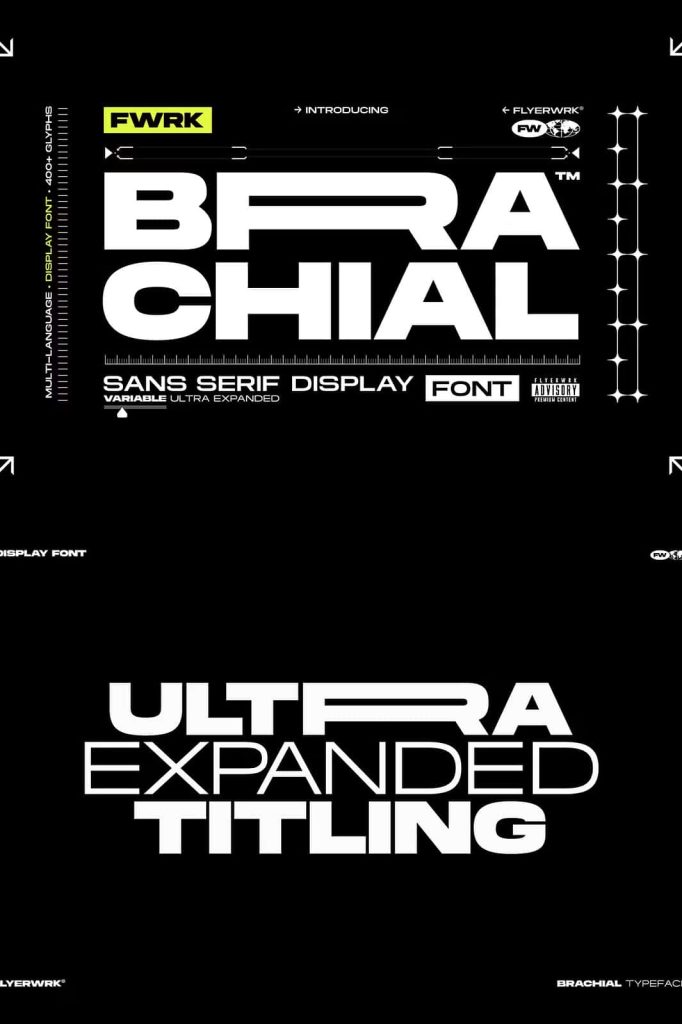
Brachial Typeface: A Bold Ultra-Wide Geometric Font That Breaks Boundaries
The Brachial typeface emerges as a groundbreaking ultra-wide geometric sans-serif font crafted for designers who refuse to settle for ordinary. Built with strong visual impact and forward-thinking aesthetics, Brachial invites creators to embrace bold expression and explore typography in a more powerful and unconventional way. This typeface becomes the ideal weapon for artists, content creators, and branding professionals aiming to deliver extraordinary visuals that command attention.
A Typeface Engineered to Defy Creative Limits
Brachial stands out through its daring design structure. Its ultra-wide proportions create a dynamic presence that instantly reshapes how text interacts with space. Every letterform is carefully constructed to reflect geometric precision while still offering an expressive voice. This unique combination allows designers to produce striking compositions with confidence, making Brachial the go-to choice for projects that demand a strong visual statement.
Ultra-Wide Geometry for Maximum Impact
The core strength of Brachial lies in its bold geometric shaping. The wide characters expand across the canvas, bringing undeniable authority and clarity to headlines, posters, packaging, and branding materials. The deliberate spacing and stretched forms empower you to take full control over layout dynamics. With Brachial, text becomes more than words—it transforms into a visual experience that defines the tone of your entire design.
Unleash Your Inner Design Maverick
This is not a typeface for subtlety. Brachial encourages creators to embrace bravery, experiment with scale, and push design boundaries further than ever before. It challenges traditional typography rules and opens doors to inventive arrangements and expressive visual storytelling. Whether you work on futuristic concepts, energetic advertising, or experimental art pieces, Brachial equips you with the freedom to shape bold and unforgettable designs.
Ideal for Branding, Posters, Digital Art, and More
The versatility of Brachial makes it a powerful asset across numerous creative fields. Its modern and commanding appearance is perfect for branding projects that need strong identity and instant recognition. Posters and promotional materials become more compelling with Brachial’s bold lines and wide stance. In digital art and editorial layouts, the typeface introduces a sense of motion and innovation that elevates the entire visual narrative. Whatever the medium, Brachial consistently delivers impactful results.
A Typeface Built for Artists Seeking the Extraordinary
In a world filled with generic fonts, Brachial stands out as a typeface designed exclusively for creators who crave something beyond the ordinary. It empowers you to build designs that look fresh, radical, and unforgettable. By combining geometric accuracy with fearless width, Brachial becomes more than a typeface—it becomes a design statement. If your goal is to command attention and produce work that challenges expectations, Brachial is the ultimate choice.
Embrace the extraordinary with the Brachial typeface and transform your creative vision into bold, boundary-defying design.